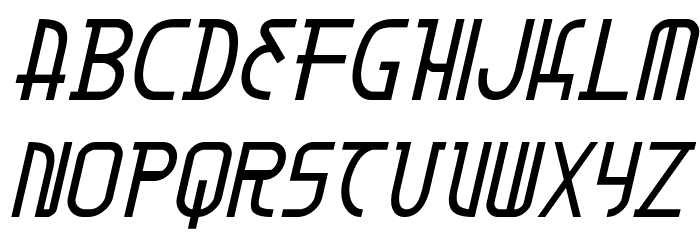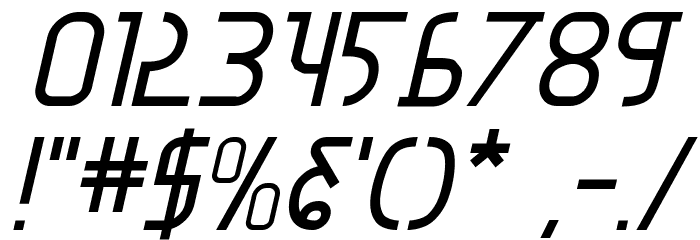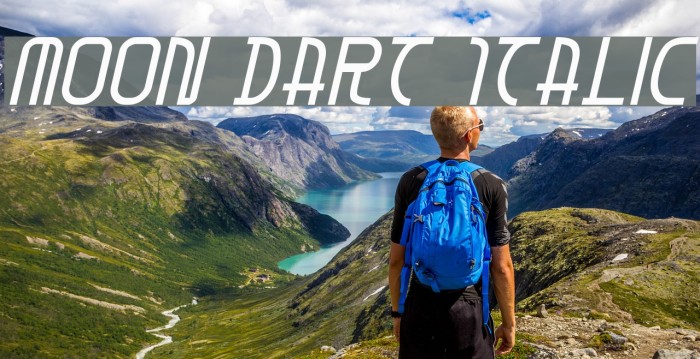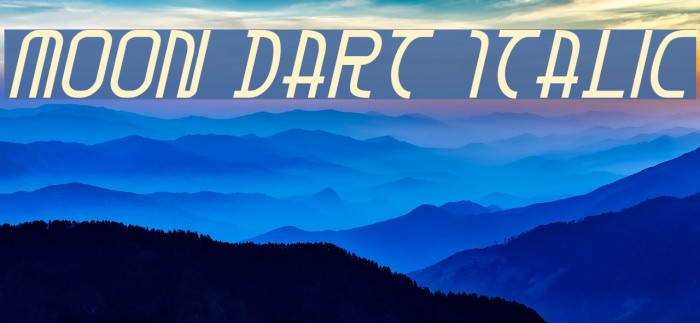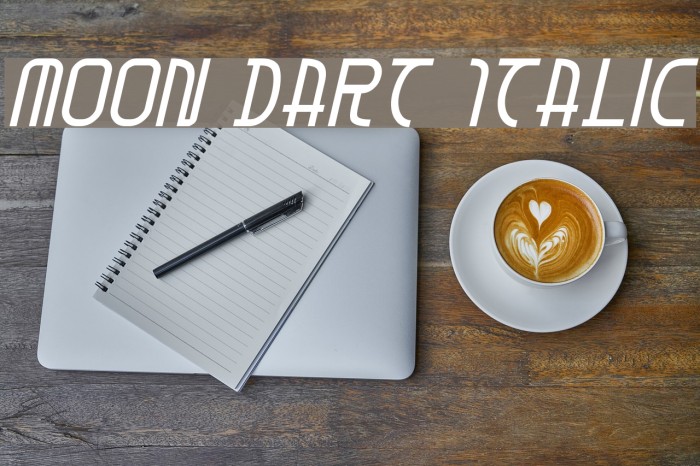
Moon Dart Italic Font
This font features a sleek, futuristic design with a distinct italic slant that gives it a sense of motion and dynamism. The characters are uniformly styled with a geometric precision, showcasing sharp angles and clean lines. The uppercase and lowercase letters maintain a consistent height, contributing to a cohesive appearance. The numerals are bold and easily distinguishable, while the special characters are crafted to match the overall aesthetic. The font's modern style is ideal for projects that require a contemporary and innovative look.
A sleek, futuristic italic font with geometric precision and dynamic style.
- Proposed Projects: Ideal for technology branding, sci-fi themed designs, modern advertising, and innovative product packaging.
- Category: Modern
- Overall Style: Futuristic
- Use Case: Headlines, Logos, Branding